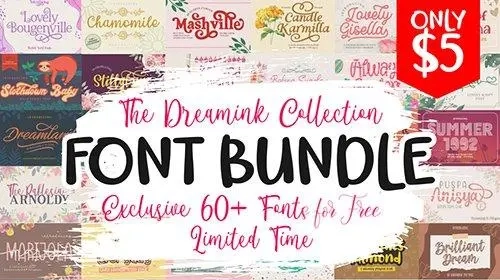
The Dreamink Collection Font Bundle
Introducing the Dreamink Collection Font Bundle, a carefully curated selection of unique typefaces designed to elevate your creative projects. This bundle features a variety of font styles, including elegant script, bold display, and modern sans-serif options, making it suitable for a wide range of applications.
• Multiple font styles: script, display, sans-serif
• Various weights for versatility
Each font in the Dreamink Collection is designed with attention to detail, ensuring readability and aesthetic appeal. The collection is perfect for branding, logos, print materials, and user interfaces.
• Utilize the script fonts for invitations and greeting cards.
• Employ display fonts for eye-catching headlines and advertisements.
• Incorporate sans-serif fonts for clean and modern web designs.